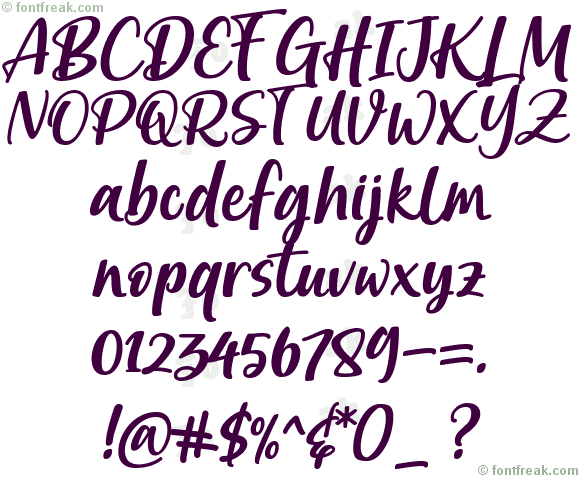
Brastagi
About Brastagi
Brastagi is a captivating script font designed by Situjuh Nazara, classified under the decorative category. Released in 2018, this typeface showcases a fluid, cursive style that exudes elegance and charm. The strokes are characterized by a moderate weight and a gentle contrast, enhancing the font's legibility while maintaining its artistic flair. The spacing between the letters is thoughtfully designed, allowing for a harmonious flow that can easily adapt to various design contexts. Decorative elements are subtly integrated, giving Brastagi a unique personality without overwhelming the viewer.
This versatile font is perfect for a variety of creative projects. It can be used effectively for wedding invitations, where its romantic curves can add a touch of sophistication. Additionally, Brastagi is an excellent choice for restaurant menus, where its inviting style can enhance the dining experience. Graphic designers will find it suitable for branding materials, as it conveys a sense of creativity and individuality. Furthermore, content creators can utilize this font in social media graphics or promotional materials, making their posts more visually appealing and engaging.
What sets the Brastagi font apart is its ability to blend elegance with practicality. Whether you are designing a heartfelt invitation or crafting a striking logo, this font brings a unique charm that can enhance any design. For those interested, a Brastagi font free download is readily available, allowing you to explore its potential in your next creative endeavor.